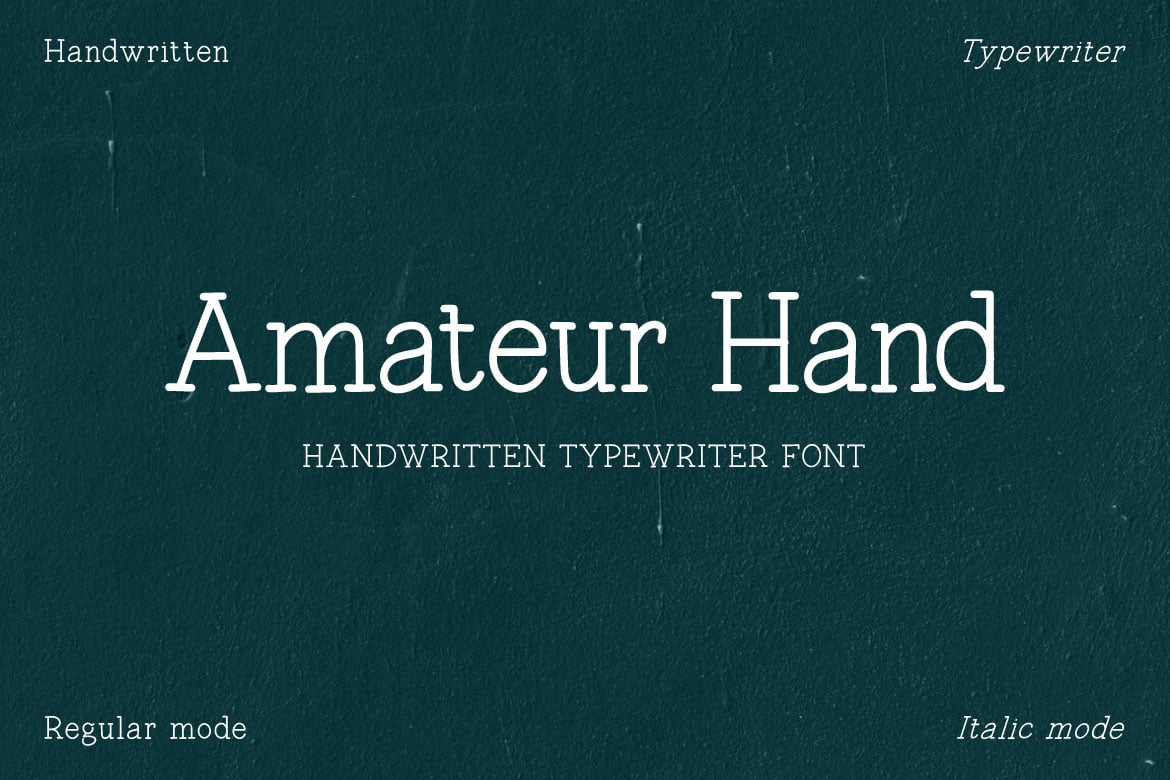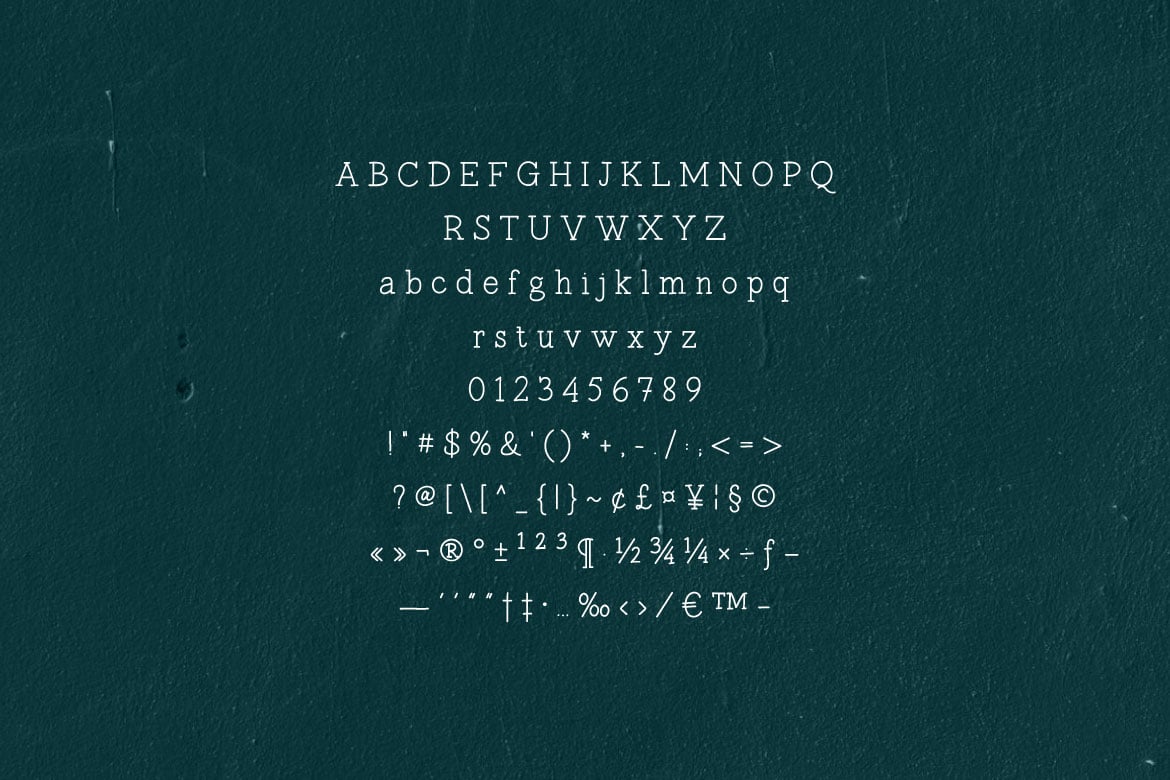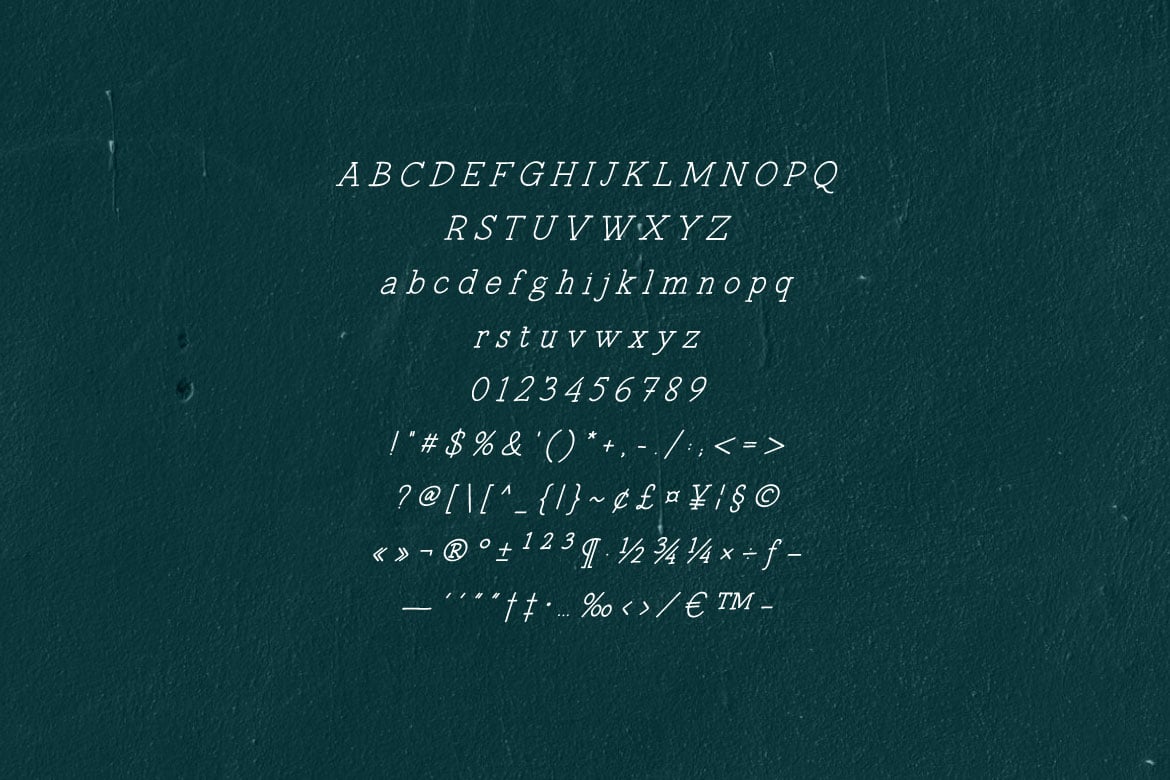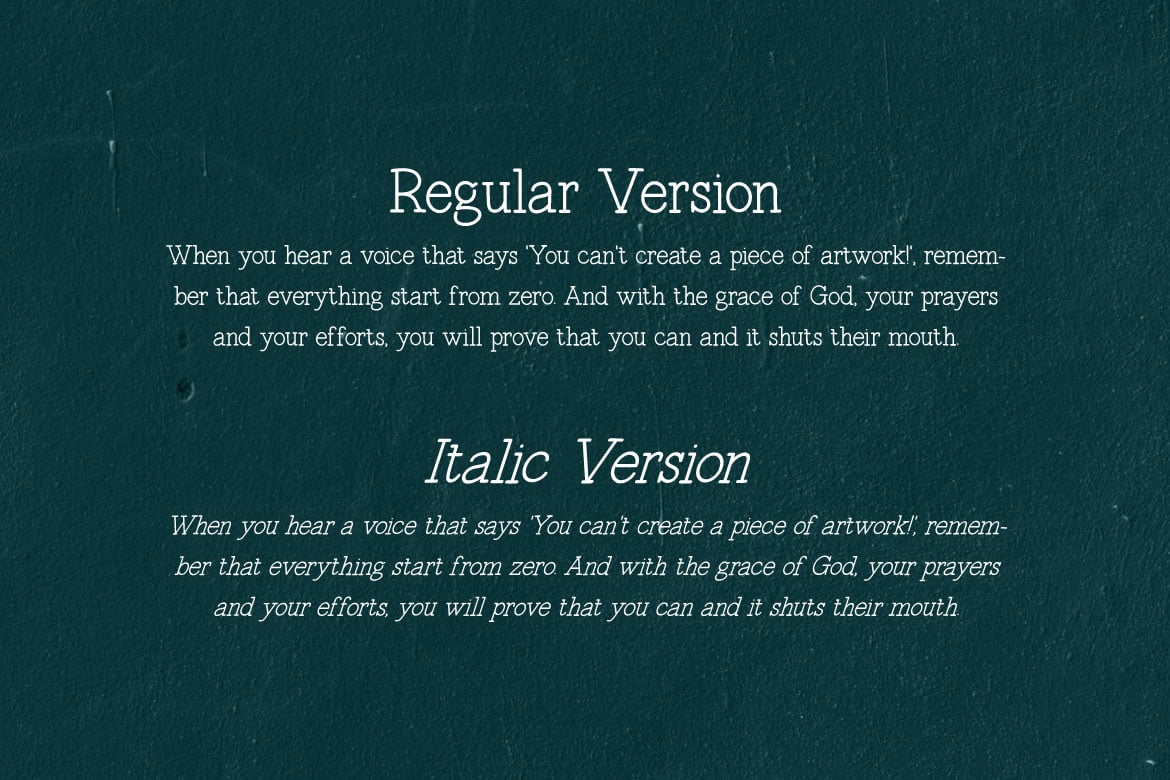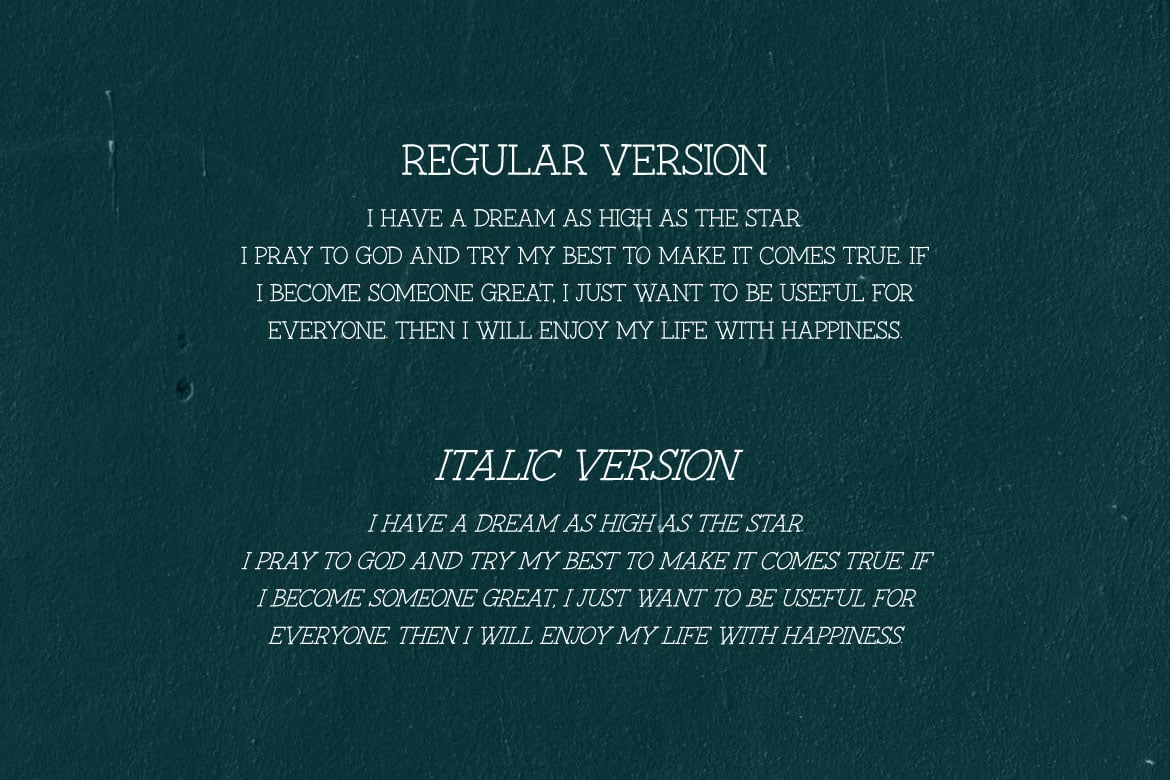
Amateur Hand – Handwritten Typewriter Font
Introducing Amateur Hand, a unique handwritten typewriter font that blends the classic feel of a typewriter with the personal touch of handcrafted script. This font is perfect for designers and creatives looking to add a touch of nostalgia and warmth to their projects.
Perfect for a wide array of applications, from literary projects, journal entries, and wedding invitations to branding, logo design, and social media graphics. Amateur Hand effortlessly adapts to both print and digital media.
Add a layer of warmth and authenticity to your design projects with Amateur Hand. Its engaging blend of the old and the new makes it a standout addition to any creative toolkit, ideal for those seeking to convey a sense of history and personality in their work.
Experience the timeless beauty of handwritten typewriter text with Amateur Hand.